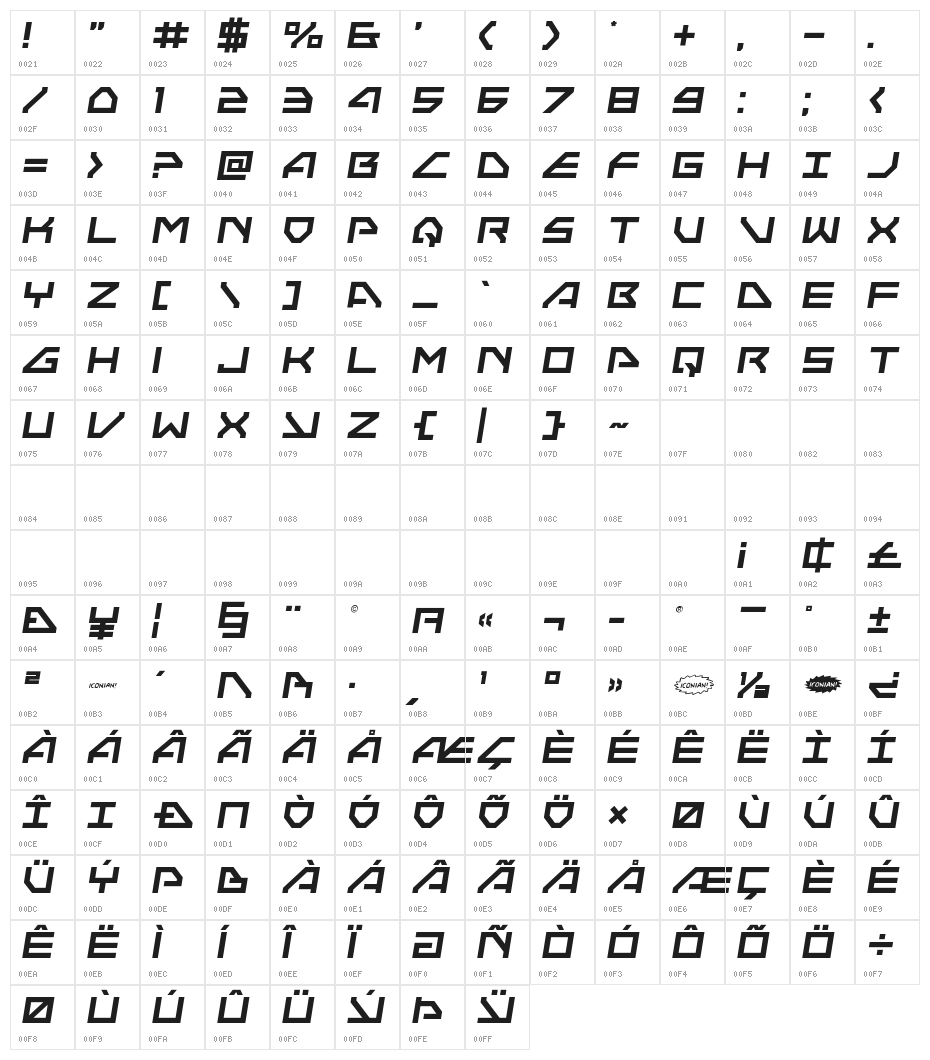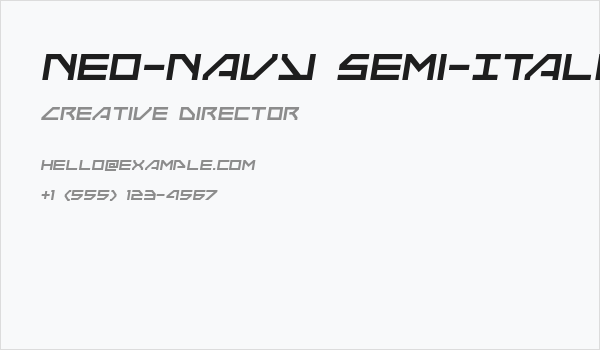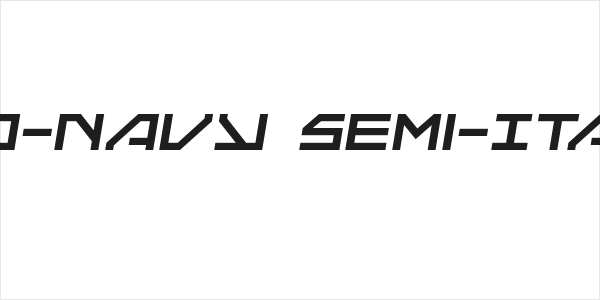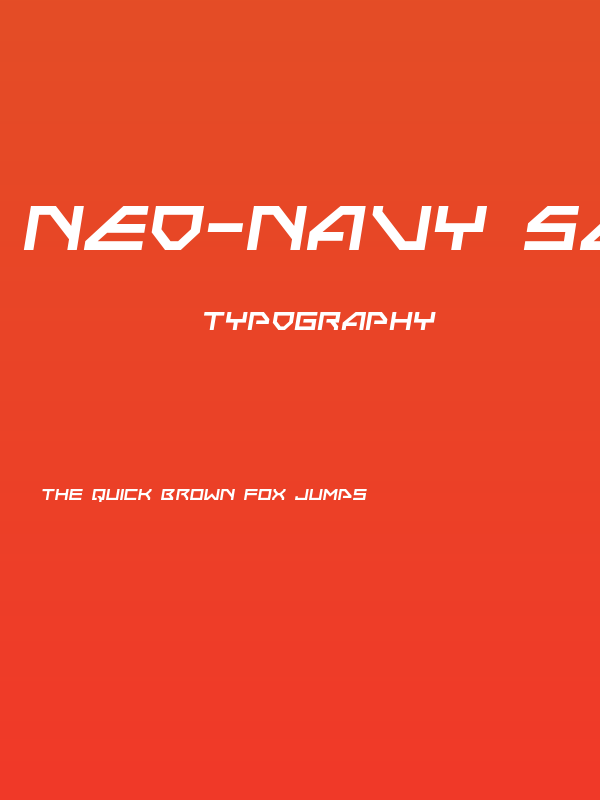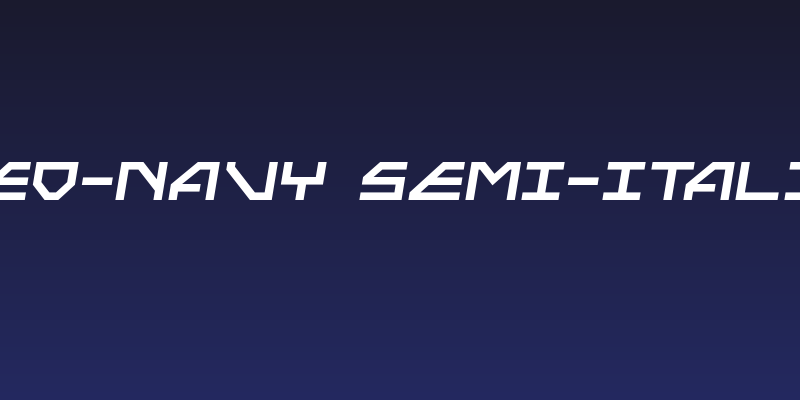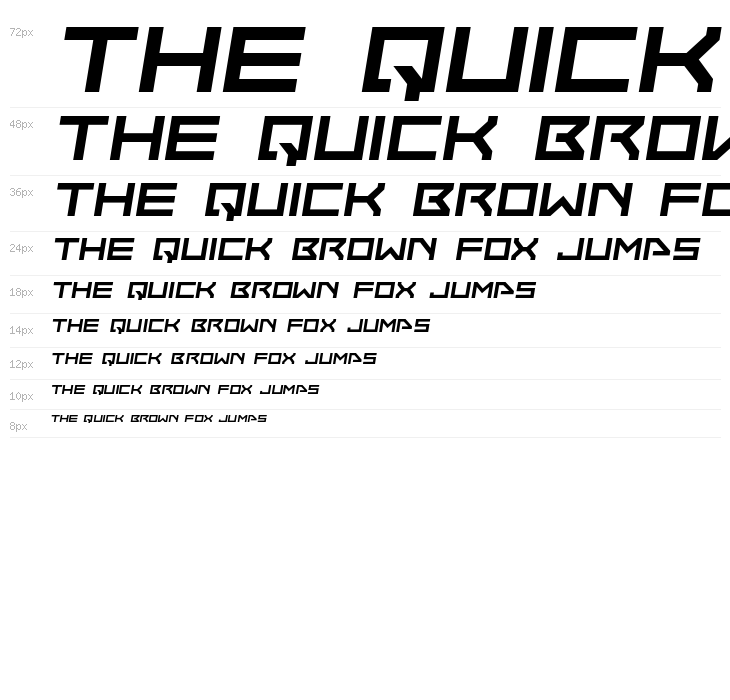
Neo-Navy Semi-Italic Font
Neo-Navy Semi-Italic Description
This font features a futuristic and angular design, characterized by sharp edges and a dynamic slant. The geometric shapes and bold lines give it a strong, assertive presence, making it ideal for modern and tech-oriented projects. The uppercase and lowercase letters maintain a consistent style, with a slight italic inclination that adds a sense of motion and speed. The numerals and special characters follow the same design principles, ensuring uniformity across all elements. The font's unique style makes it stand out, suitable for projects that require a contemporary and edgy look.
| Proposed Projects | Ideal for technology branding, sci-fi posters, video game titles, and modern advertising. |